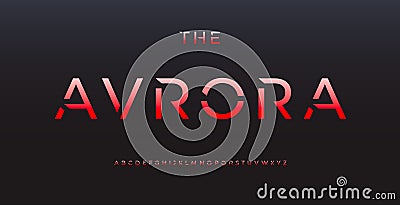
Futuristic Sci-fi Font, Angular Geometric Letters, Modern Digital Typography, High-tech Cyberpunk Typeface, Bold Vector Illustration
Futuristic sci-fi font, angular geometric letters, modern digital typography, high-tech cyberpunk typeface, bold minimalistic design, sport tech branding, contemporary gaming style. Vector typeset.